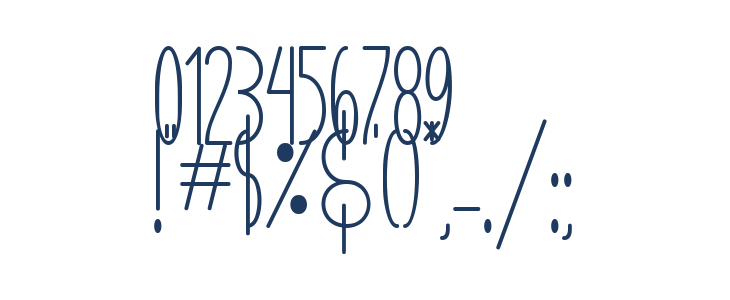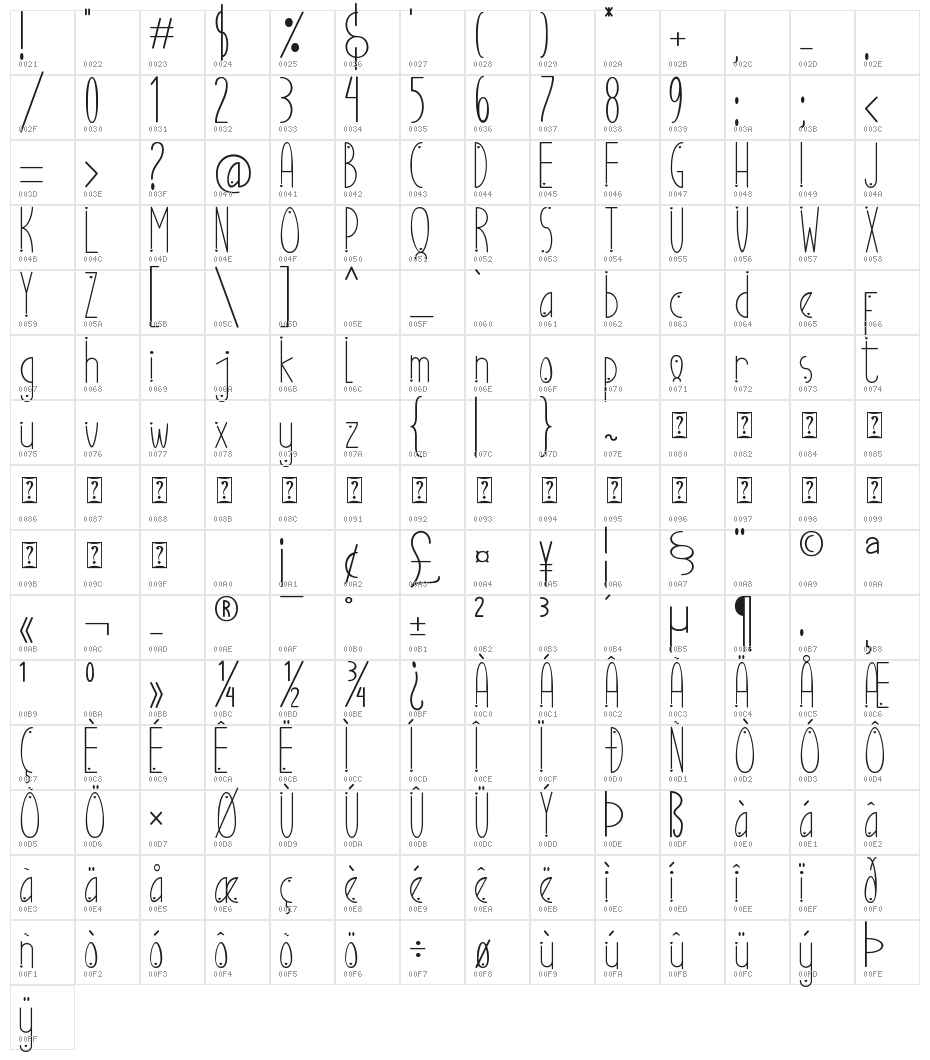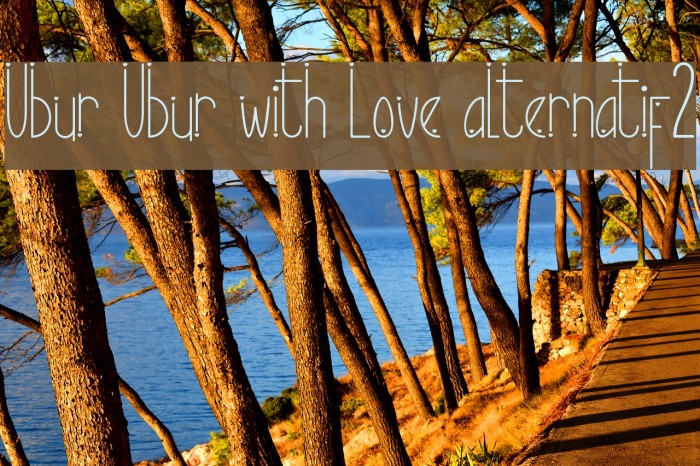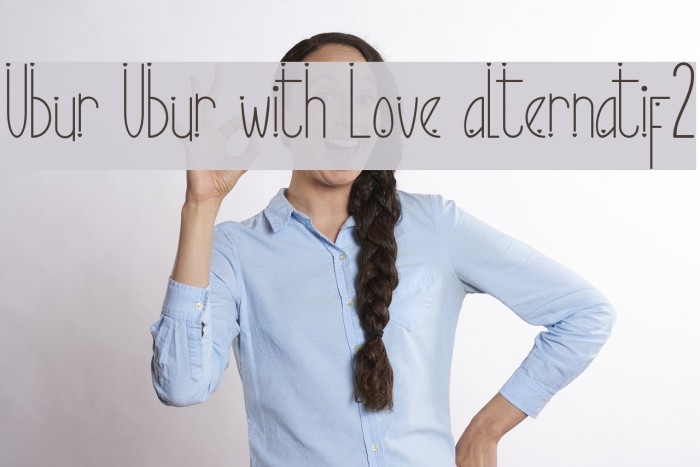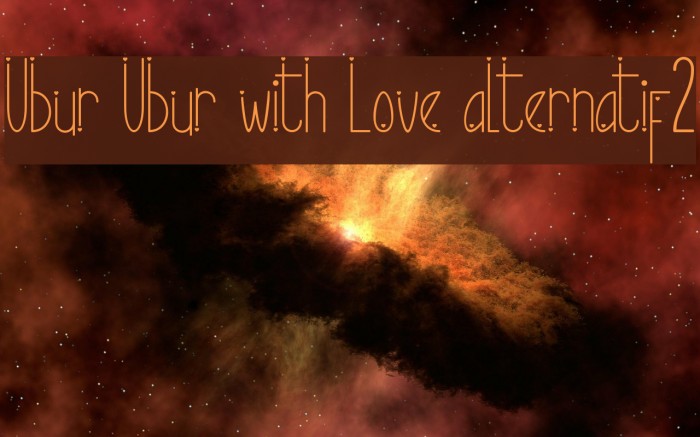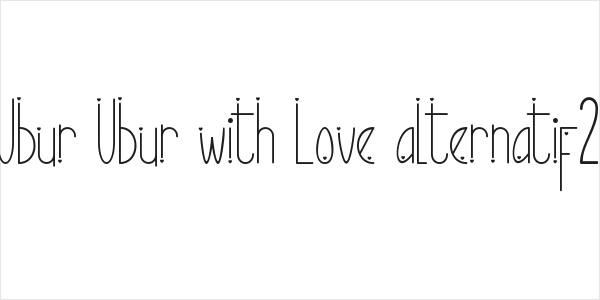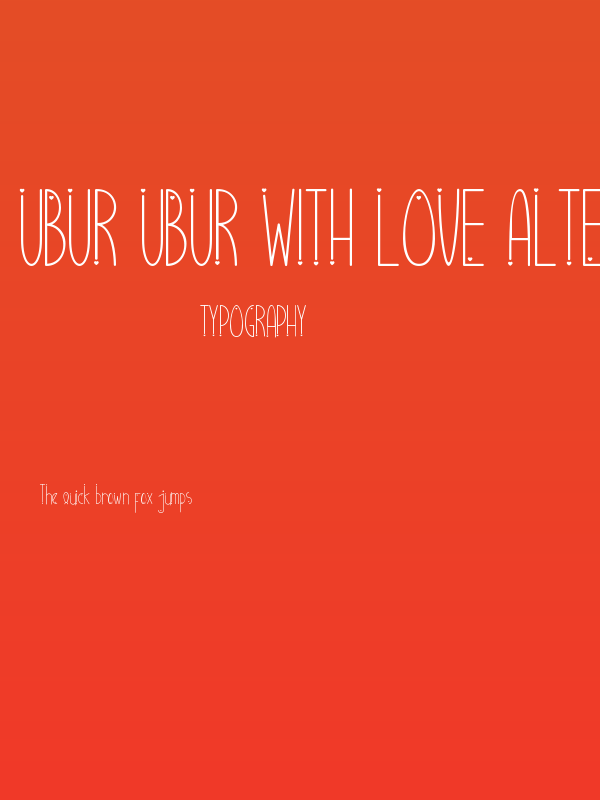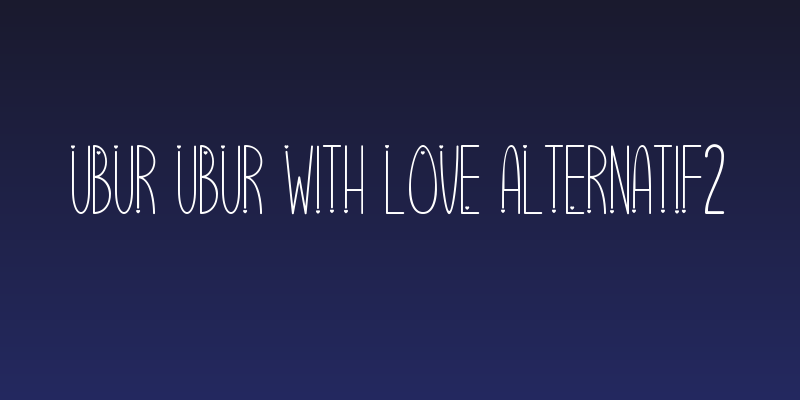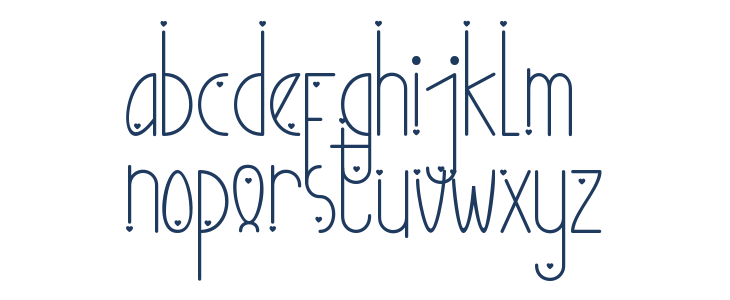
Ubur Ubur with Love alternatif2 Font
Ubur Ubur with Love alternatif2 Description
This font features a unique and playful design with elongated, narrow characters that incorporate small heart shapes as decorative elements. The letters are thin and tall, giving a whimsical and airy feel. The inclusion of hearts adds a touch of romance and charm, making it stand out as a decorative typeface. The numbers and special characters maintain the same playful style, ensuring consistency across all glyphs. This font is ideal for creative projects that require a light-hearted and fun aesthetic.
| Proposed Projects | Ideal for wedding invitations, greeting cards, playful branding, and children's book covers. |